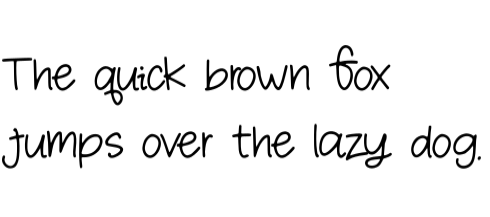
Nylah Font: The Ultimate Handwritten Font for Creative Projects
Nylah font is an authentic handwritten font that has captured the hearts of designers and creative enthusiasts alike. With its romantic touch and elegant feel, this font has become a favorite among those looking to add a personal touch to their projects. In this article, we’ll dive into the world of Nylah font, exploring its features, benefits, and uses, as well as provide tips on how to make the most of this versatile font.
What Makes Nylah Font Special?
Nylah font is an expertly designed handwritten font that boasts a unique blend of elegance and playfulness. Its authentic feel makes it perfect for a wide range of creative projects, from romantic wedding invitations to social media graphics and branding materials. Here are some of the key features that make Nylah font stand out:
- Romantic touch: Nylah font has a subtle romantic flair that adds a touch of warmth and personality to any project.
- Legibility: Despite its handwritten nature, Nylah font is remarkably legible, making it suitable for both title and body text.
- Versatility: Nylah font can be used for a wide range of projects, from magazine headlines and social media graphics to branding materials, wedding invitations, and more.
The Benefits of Using Nylah Font
Nylah font offers a range of benefits that make it an attractive choice for designers and creative enthusiasts. Here are some of the advantages of using Nylah font:
- Unique and distinctive: Nylah font has a unique and distinctive feel that sets it apart from more traditional fonts.
- Emotional connection: The romantic touch of Nylah font helps to create an emotional connection with the reader, making it perfect for projects that require a personal touch.
- Flexibility: Nylah font can be used for a wide range of projects, from formal and professional to informal and playful.
- Ease of use: Nylah font is easy to read and works well in a variety of contexts, making it a versatile addition to any design toolkit.
Creative Ways to Use Nylah Font
Nylah font is a versatile font that can be used in a wide range of creative projects. Here are some ideas to get you started:
- Wedding invitations: Nylah font is perfect for wedding invitations, adding a romantic touch to your special day.
- Social media graphics: Use Nylah font to create eye-catching social media graphics that stand out from the crowd.
- Branding materials: Nylah font can be used to create unique and memorable branding materials, such as logos, business cards, and letterheads.
- Magazine headlines: Nylah font is perfect for magazine headlines, adding a touch of elegance and sophistication to your publication.
- Cards and stationery: Use Nylah font to create beautiful cards and stationery that are perfect for special occasions.
Tips and Tricks for Using Nylah Font
Here are some tips and tricks to help you get the most out of Nylah font:
- Use it sparingly: Nylah font is a distinctive font, so use it sparingly to avoid overwhelming the reader.
- Mix and match: Experiment with different font combinations to create a unique and visually appealing design.
- Pay attention to size: Make sure to adjust the font size to suit the context, using larger sizes for headlines and smaller sizes for body text.
- Experiment with colors: Nylah font works well with a range of colors, so don’t be afraid to experiment and find the perfect combination for your project.
Pairing Nylah Font with Other Fonts
Nylah font can be paired with a range of other fonts to create a unique and visually appealing design. Here are some font pairing suggestions:
- Serif fonts: Pair Nylah font with serif fonts, such as Times New Roman or Georgia, for a classic and elegant look.
- Sans-serif fonts: Combine Nylah font with sans-serif fonts, such as Arial or Helvetica, for a modern and playful feel.
- Script fonts: Pair Nylah font with other script fonts, such as Pacifico or Great Vibes, for a romantic and whimsical look.
Nylah font is a versatile and elegant handwritten font that is perfect for a wide range of creative projects. With its romantic touch, legibility, and flexibility, Nylah font is sure to become a favorite among designers and creative enthusiasts. Whether you’re looking to create wedding invitations, social media graphics, or branding materials, Nylah font is a great choice. So why not give it a try and see the difference it can make in your designs?